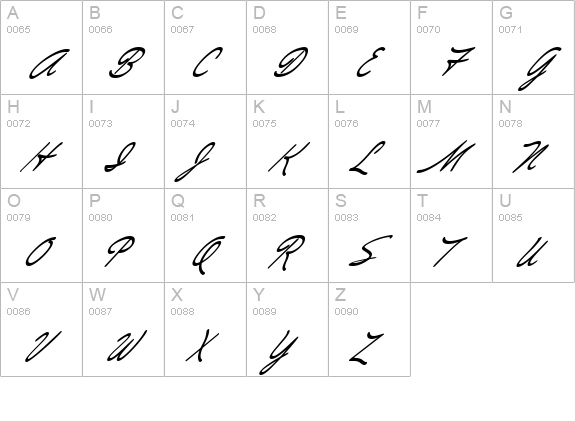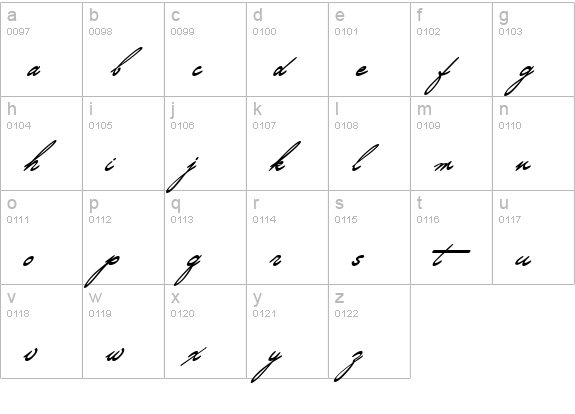
Directors Script Font Details
Directors Script is a classic and elegant font that exudes sophistication and charm. With its gracefully flowing lines and distinctive flair, this font is perfect for adding a touch of refinement to any project. Whether you're working on invitations, branding materials, or any other design project, Directors Script will elevate your work to new heights. The best part? Directors Script is available for free download at FontsMarket.com. Embrace the beauty of this timeless font and bring a touch of luxury to your designs without breaking the bank. Download Directors Script today and let your creativity shine!